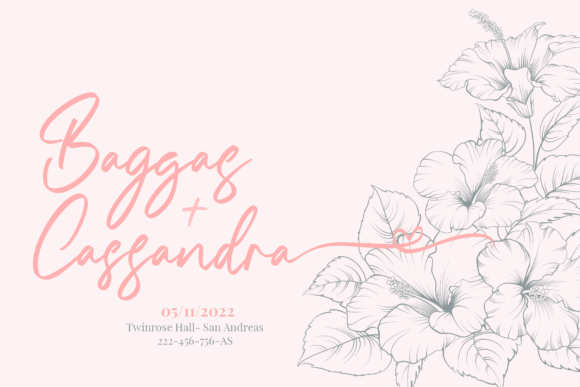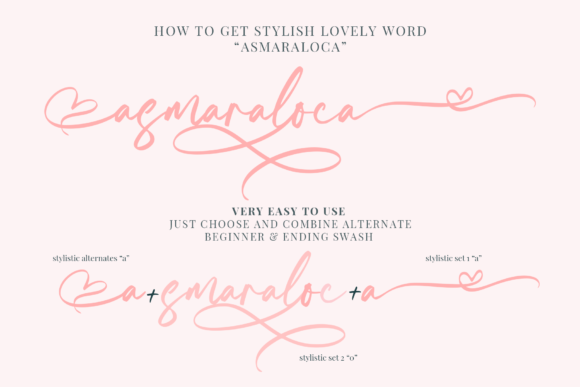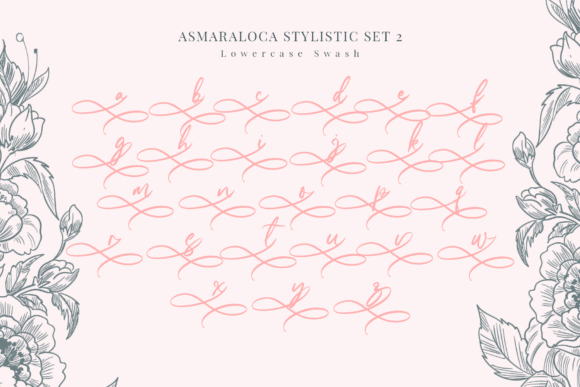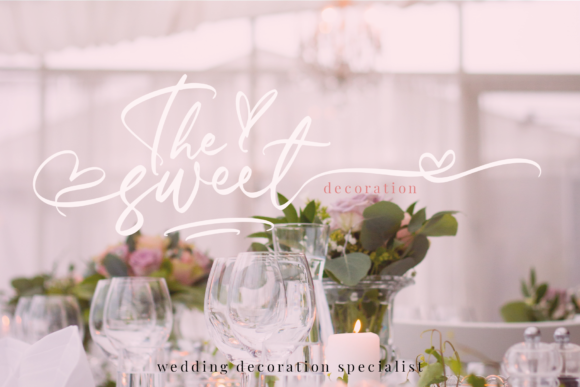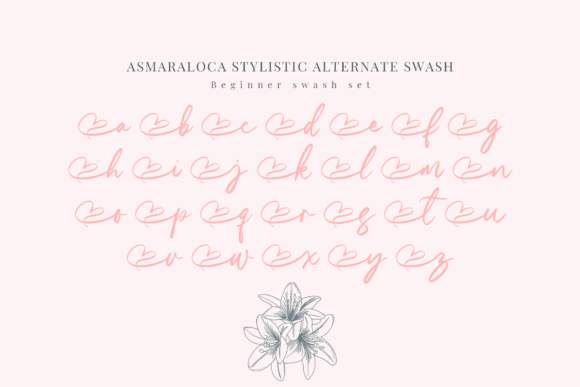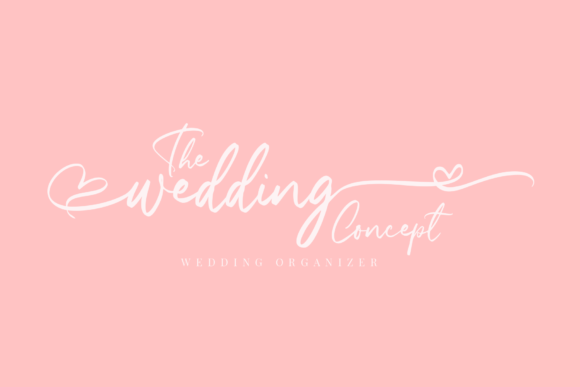
The Perfect Handwritten Touch: Unveiling the Asmaraloca Font
Have you ever been brainstorming ideas for a special project, only to find yourself scribbling down notes and sketches by hand? It’s a moment where creativity flows freely, and the lines between digital and physical blur. For designers, this feeling is all too familiar – especially when it comes to finding the perfect font to bring a project to life. That’s where the Asmaraloca Font comes in, offering a stunning handwritten touch that elevates any design.
This beautiful font is perfect for adding a personal and elegant touch to wedding invitations, thank you cards, quotes, and more. With its flowing lines and intricate details, the Asmaraloca Font is a valuable tool for designers looking to add a handwritten feel to their work. Plus, its PUA encoding makes it easy to access all the glyphs and swashes, giving you complete control over your design.
Asmaraloca Font Key Features
- Font Family: Asmaraloca Font is a unique, handwritten script font designed for creative and artistic purposes.
- Character Count: The font includes a vast character set, including uppercase and lowercase letters, numbers, and punctuation marks.
- Unique Characteristics: Asmaraloca Font features a distinctive, cursive style with irregular letterforms and subtle flourishes, making it perfect for adding a touch of personality to designs.
Asmaraloca Font Review
As a designer, I was excited to dive into the world of Asmaraloca Font. Here’s my honest take on this stylish script font.
- Unique Aesthetic: Asmaraloca Font brings a distinct flair to any design project, making it perfect for adding a touch of elegance and sophistication.
- Good Legibility: Despite its script nature, the font is surprisingly easy to read, making it suitable for body text as well as headings.
- Great for Creative Projects: Asmaraloca Font shines in creative projects such as invitations, brochures, and social media graphics, where its whimsical charm can be fully utilized.
- Limited Use in Technical Writing: Asmaraloca Font’s script nature makes it less suitable for technical writing, where clear and concise communication is crucial.
- Potential Overuse: The font’s distinctive style can become overwhelming if used excessively, so it’s essential to balance its use with other fonts.
- May Not Be Suitable for Small Text: Due to its script nature, Asmaraloca Font can become difficult to read when used in small text sizes, so it’s best to use it in larger font sizes.
Overall, Asmaraloca Font is a beautiful and versatile script font that can add a touch of elegance to any design project. While it has some limitations, its unique aesthetic and good legibility make it a valuable addition to any designer’s toolkit.
The Asmaraloca font is ideal for creative and artistic projects, such as:
– Artistic posters and prints
– Personalized gifts and stationery